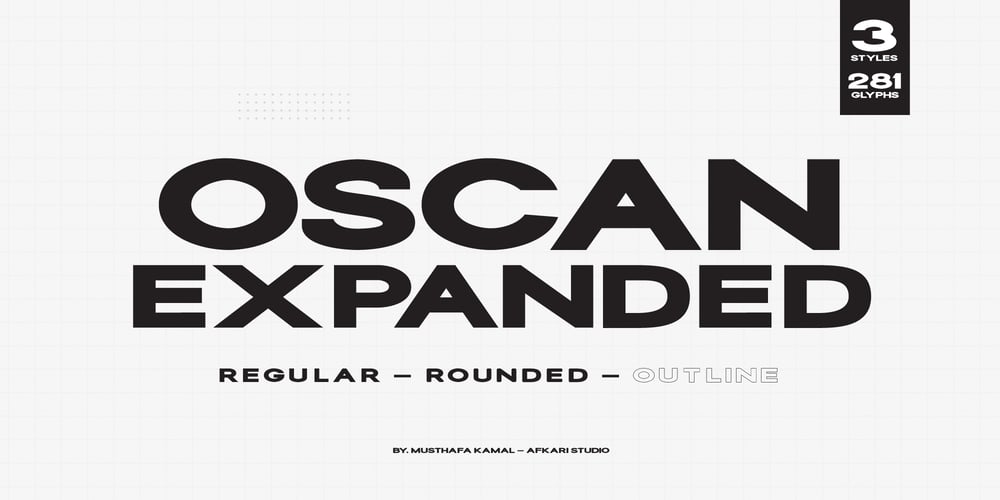
Oscan Expanded Font Family was designed by Musthafa Kamal Emje and published by Afkari Studio. Oscan Expanded contains 3 styles and family package options. Oscan Expanded – Display Sans Serif FontOscan Expanded is A special display sans serif font with expanded style and lowercase included. This font also contains some alternates to make your design cooler. The oscan expanded font is perfect for headline titles, fashion, magazines, logos, branding, photography, invitations, poster, movie title, quotes, blog headers, advertisements, postcards, book covers, websites, branding, etc.Features;– 3 Styles; Regular, Rounded and Outline– Uppercase, Lowercase, Number, and Punctuation– Special Alternates– Works on PC & Mac– Simple installations– Accessible in Adobe Illustrator, Adobe Photoshop, Adobe InDesign, even work on Microsoft Word– Fully accessible without additional design software.- Mültîlíñgúãl Sùppört for; ä ö ü Ä Ö Ü ß ¿ ¡Hope you enjoy our font and this font is useful for your projects!